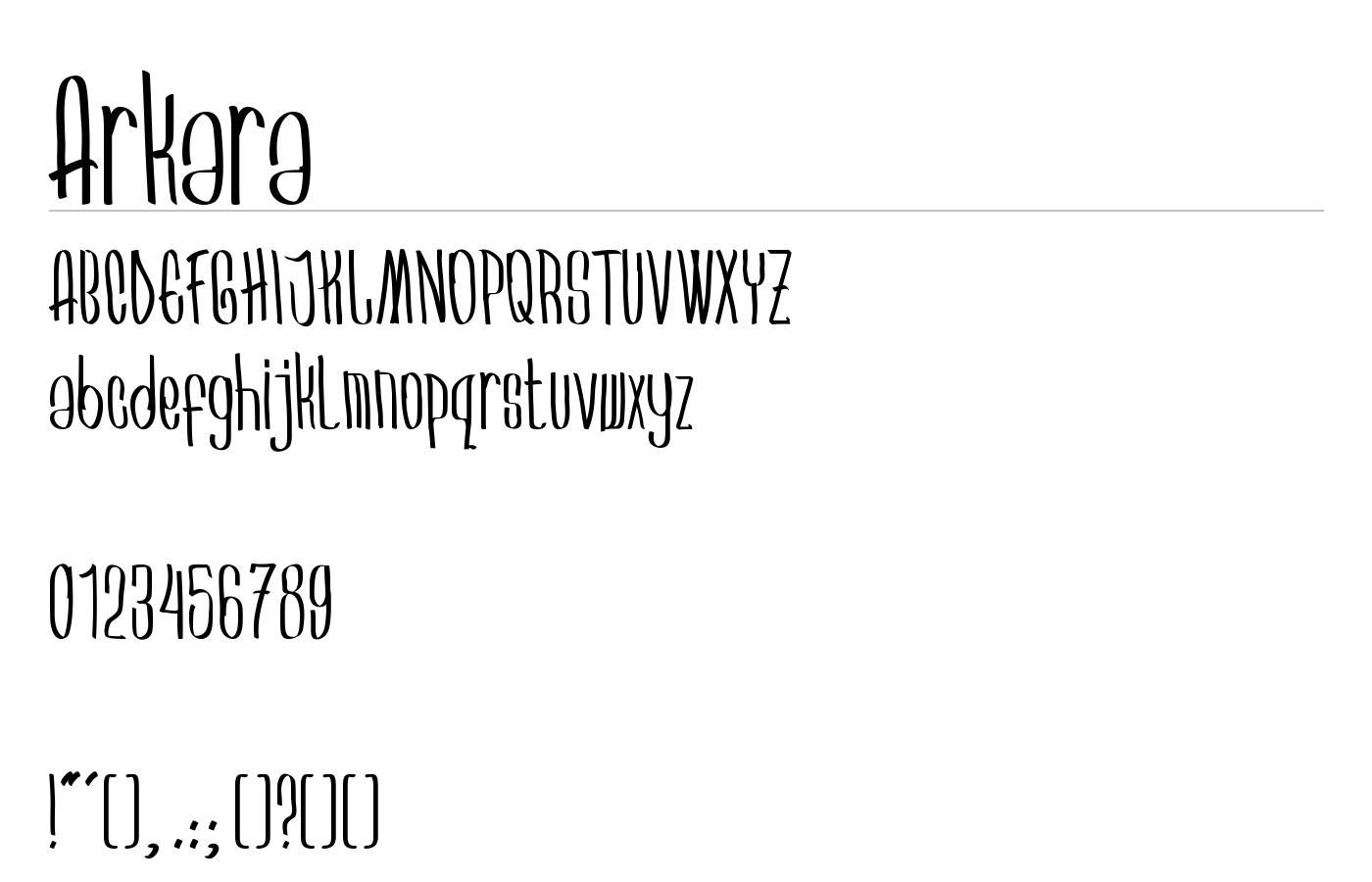
Arkara is a narrow, tall sans serif font with a playful and quirky personality, featuring elongated letterforms and subtle variations in stroke thickness that give it a hand-drawn feel. Its unique character shapes and slim profile make it ideal for creative headlines, logos, and branding that seek a distinctive and artistic look. This font works best where a modern, whimsical vibe is desired, adding charm and originality without sacrificing readability.
Arkara Font